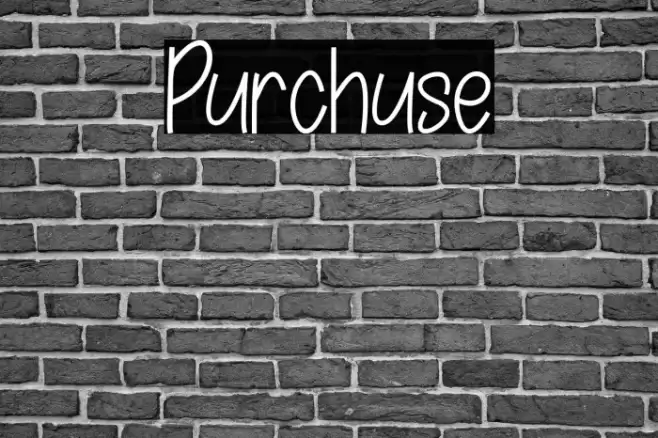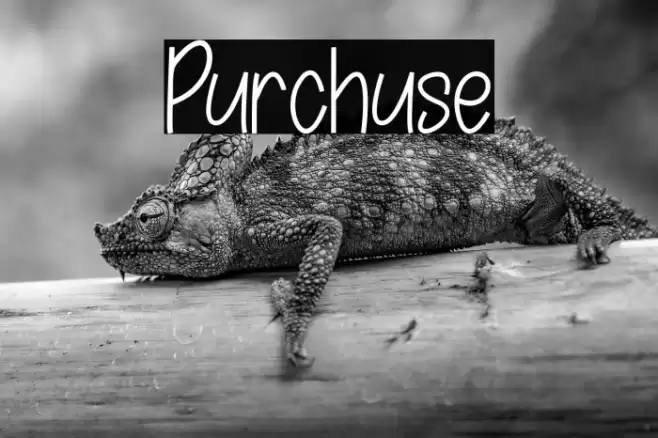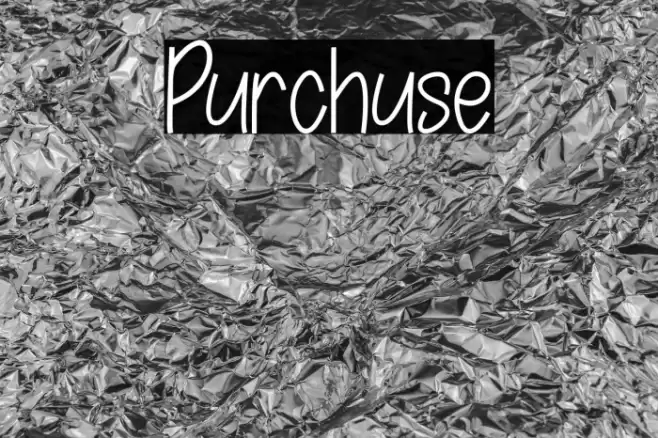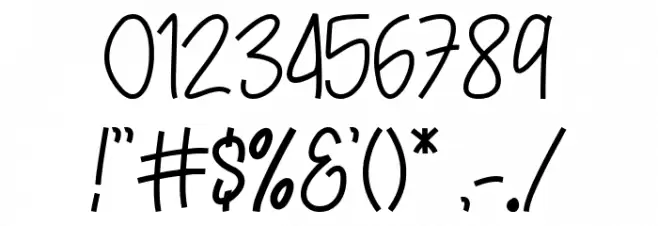
Purchuse Font
Purchuse Description
This font features a playful and casual handwritten style, characterized by its tall and slightly narrow letterforms. The strokes are smooth and consistent, giving it a friendly and approachable appearance. The uppercase letters are bold and prominent, while the lowercase letters maintain a cohesive flow with a slight slant, adding to the informal aesthetic. Numbers and special characters are designed to match the overall style, ensuring versatility in various applications. The font's unique charm makes it suitable for creative projects that require a personal touch.
A playful, handwritten font with smooth, consistent strokes and a casual style from Regular fonts.
- Proposed Projects: Ideal for greeting cards, invitations, children's books, and playful branding projects.
- Overall Style: Casual
- Use Case: Headlines, Logos, Informal Text